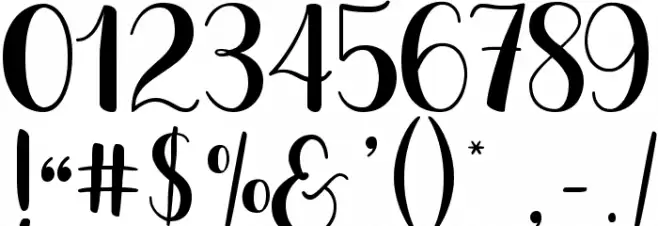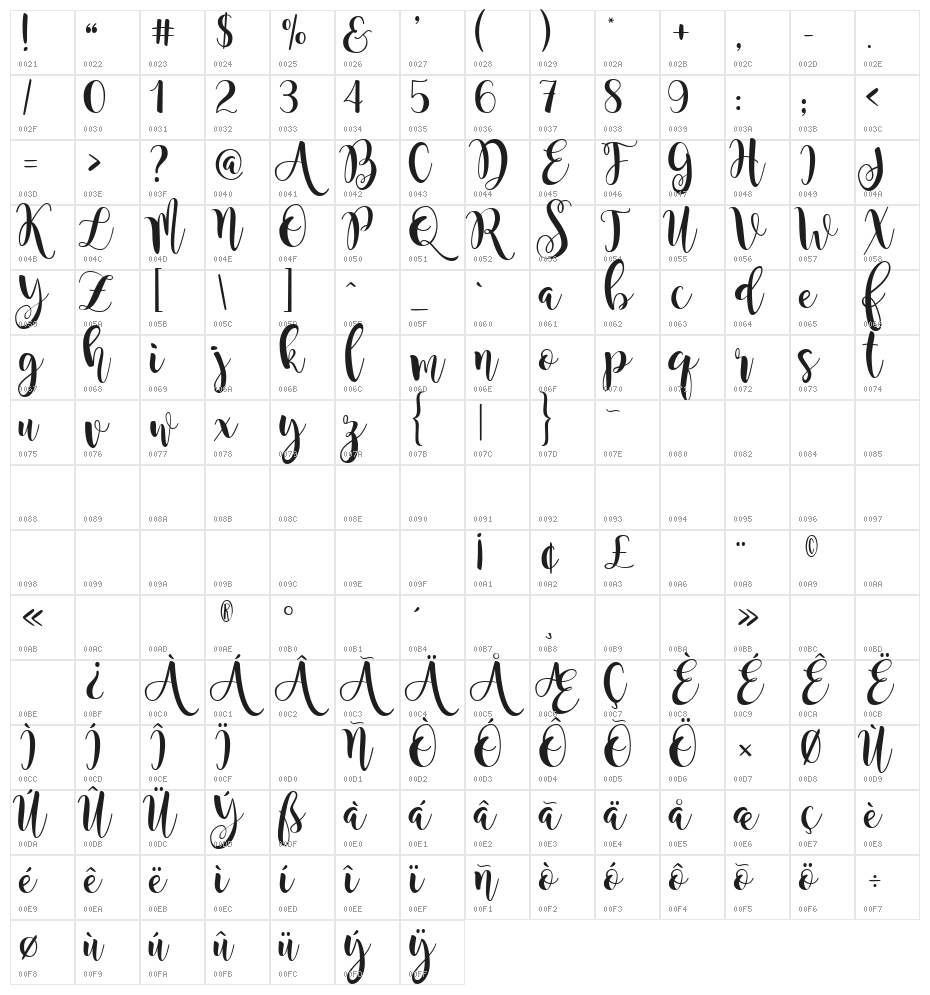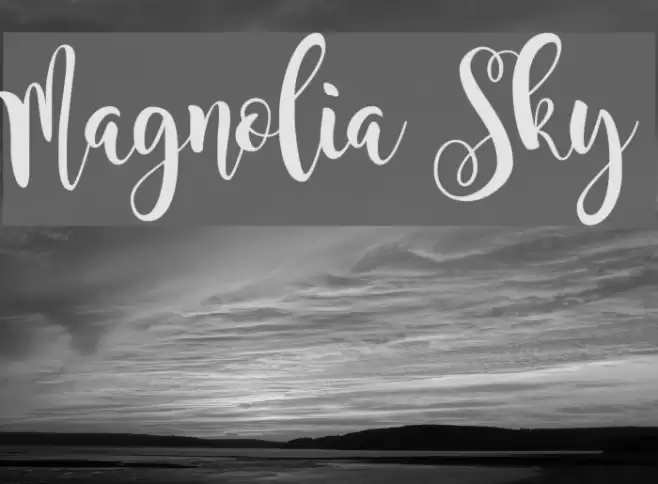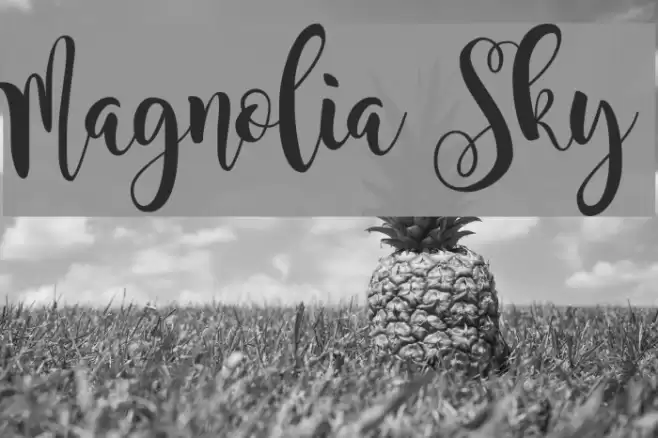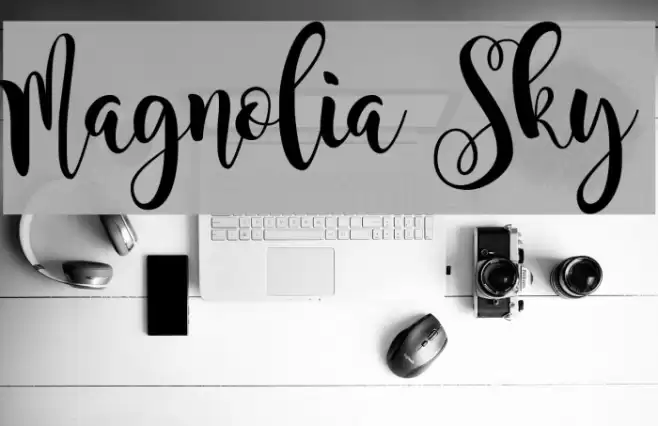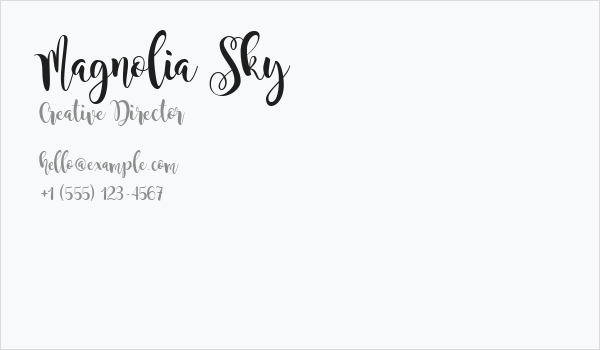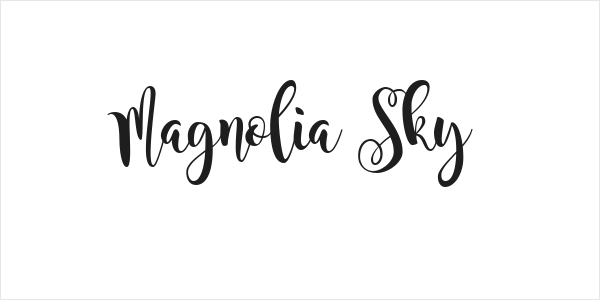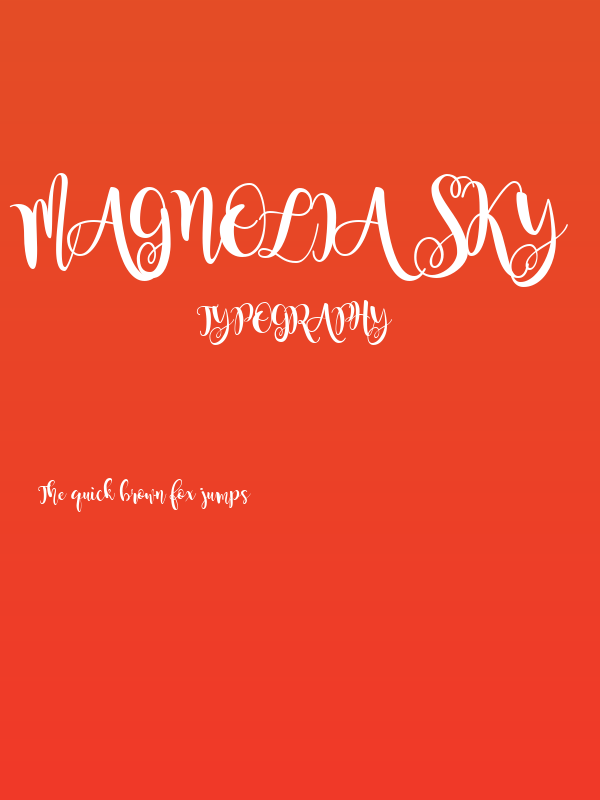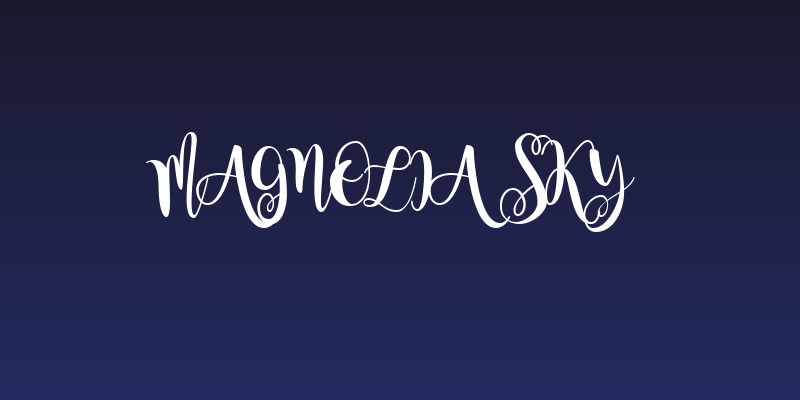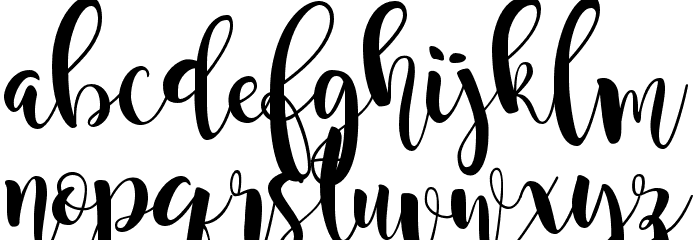
Magnolia Sky Font
Magnolia Sky Description
This font exudes a playful and whimsical charm, characterized by its flowing, cursive script style. The letters are interconnected with elegant loops and swirls, giving it a handwritten feel. The uppercase letters are bold and expressive, while the lowercase letters maintain a consistent fluidity. The numbers are stylishly crafted, matching the overall aesthetic. Special characters are creatively designed, adding to the font's decorative appeal. This font is perfect for projects that require a personal touch, such as invitations, greeting cards, and branding materials.